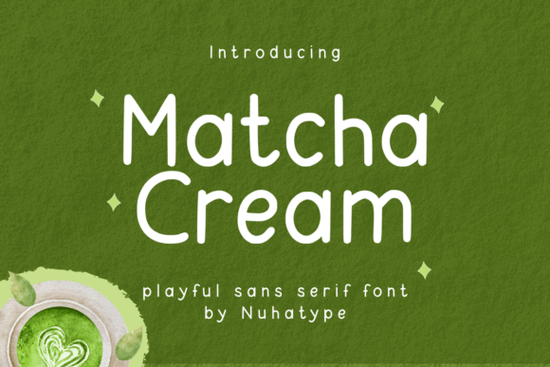
Matcha Cream Font is a versatile and elegant choice for anyone looking to add a touch of simplicity and sophistication to their design projects. Its thin, minimalist sans serif style gives it a clean and modern look, making it ideal for a wide range of creative applications. Whether you're working on planners, journals, or custom printed items, this font can help bring your vision to life with its subtle charm.
If you're a designer, crafter, or small business owner, you know how important it is to find the right typography to match your aesthetic. Matcha Cream Font offers a unique blend of readability and style that works well in both digital and physical formats. It’s especially popular among those who want to create something that feels personal and handmade, without sacrificing clarity or professionalism.
One of the standout features of Matcha Cream Font is its ability to complement a variety of design styles. Its minimalistic approach makes it perfect for use in layouts where less is more. You can use it for headings, labels, or even body text, depending on the effect you're going for. Its soft, handwritten feel adds a warm and inviting tone to any project.
How to Use Matcha Cream Font in Your Projects
There are countless ways to incorporate Matcha Cream Font into your creative work. For example, if you're designing for print-on-demand products like mugs or tote bags, this font can help make your designs stand out. It pairs well with other fonts, so you can mix and match to create a balanced and cohesive look.
For journaling or planner pages, Matcha Cream Font adds a refined touch that feels both modern and timeless. It's also great for creating quotes or motivational messages that need to be clear and easy to read. The font's thin strokes make it particularly effective for smaller text sizes, ensuring legibility without overwhelming the design.
If you're using tools like Cricut or other crafting machines, Matcha Cream Font can be a valuable addition to your library. Its clean lines and simple structure make it easy to cut and apply to various surfaces, whether you're making stickers, labels, or decorative elements.
When choosing a font, it's important to consider the context in which it will be used. Matcha Cream Font is best suited for projects that require a soft, understated appearance. If you're looking for something more dramatic or bold, you may want to explore other options. However, for most everyday design tasks, this font should serve you well.
- Try using Matcha Cream Font for headers and titles to create a clean, modern layout.
- Pair it with a bolder font for contrast and visual interest.
- Test it in different sizes to see how it looks in various contexts.
- Use it in combination with other design elements like icons or illustrations.